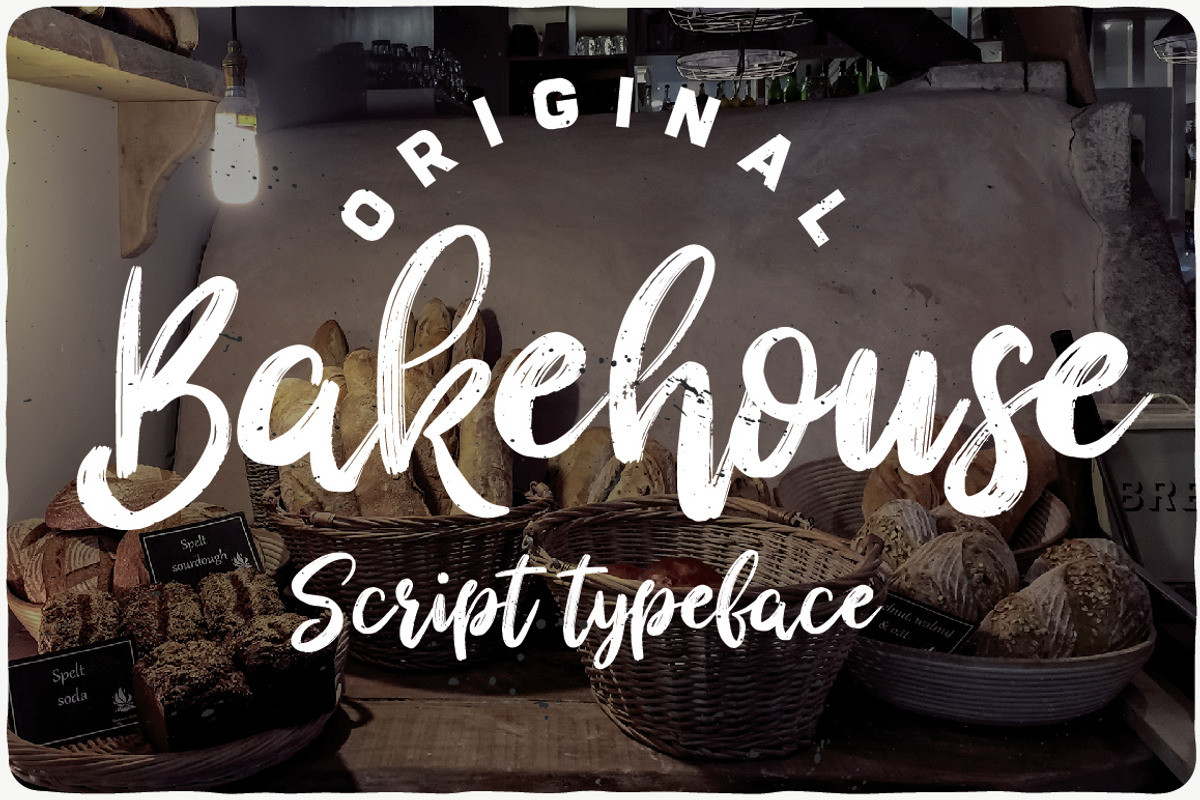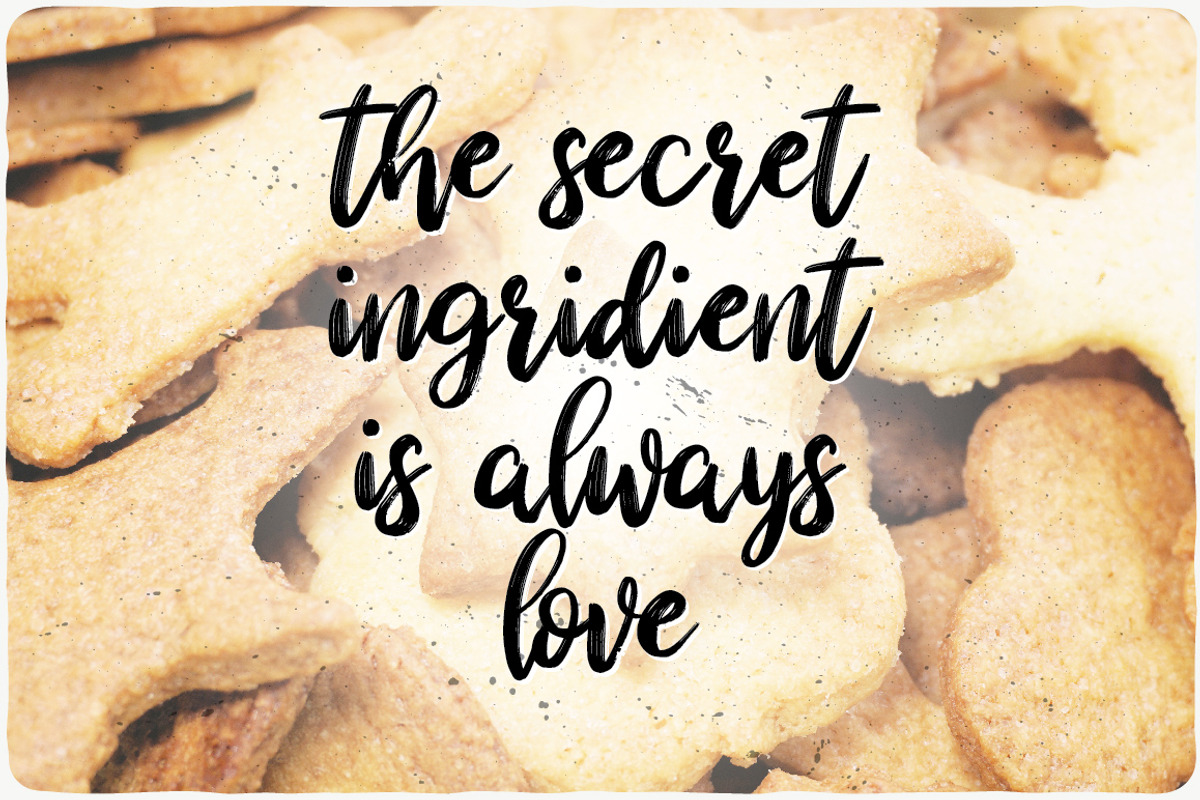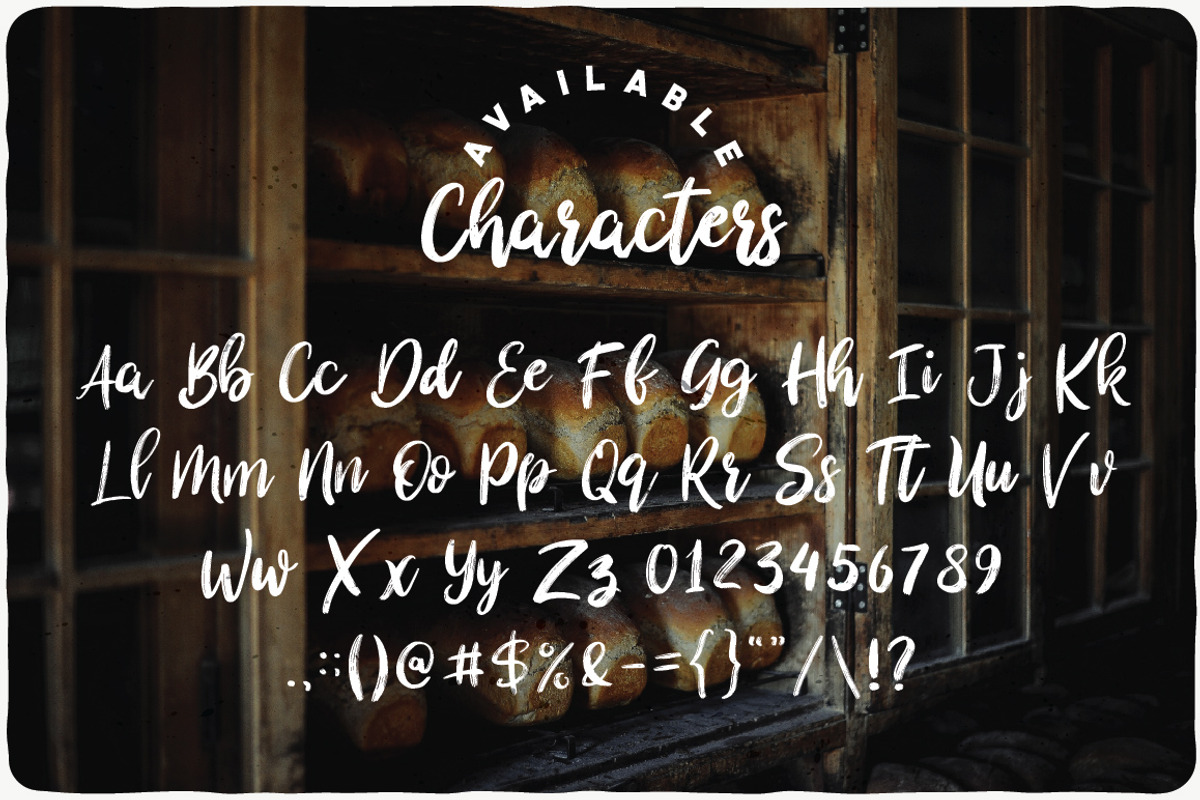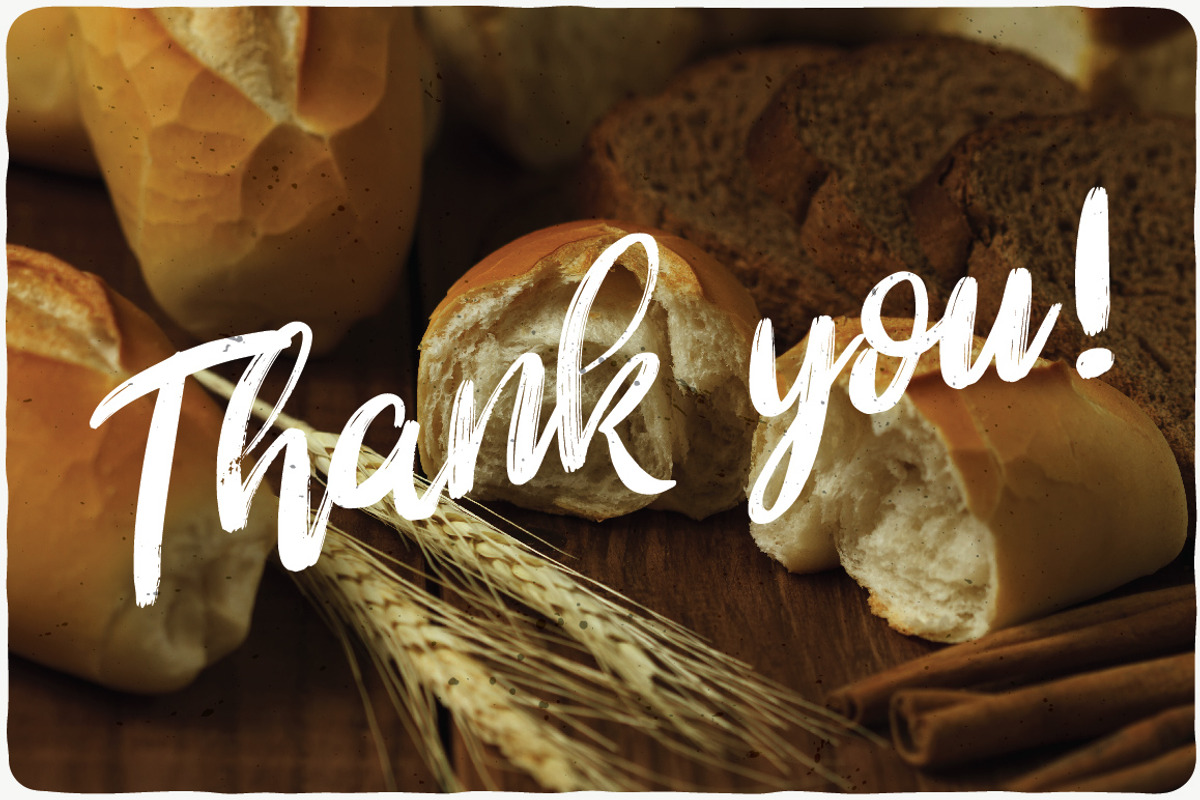
Bakehouse typeface
Introducing a new script label typeface named "Bakehouse". This typeface contents caps and small letters, numbers and several punctuation signs. This is a handwritten brush font with authentic dry brush strokes like drawn on paper. Font format: OTF. Photos are not in complect but you can find them on pxhere.com for free.
- This typeface contents caps and small letters, numbers and several punctuation signs.
Why Bakehouse typeface is worth a look
Bakehouse typeface by VozzyStock fits naturally into Branding, posters, packaging, typography.